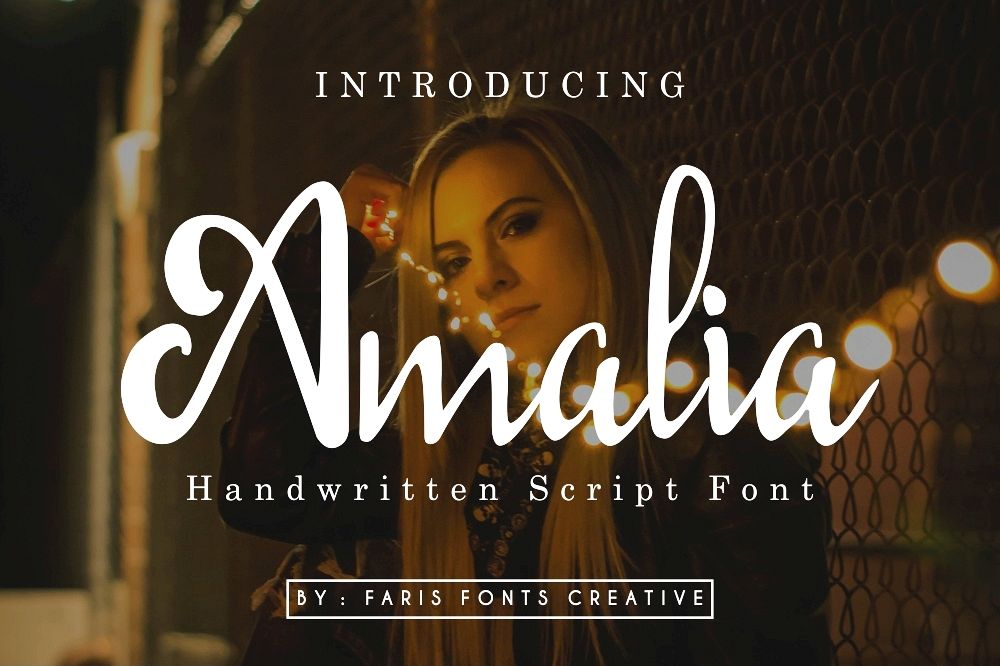
Amalia
Amalia is a
hand written font that has unic and strong style it works perfectly in all sort
of photo, design projects like fashion, wedding, branding, and more.
Amalia font
Complete with :
- Uppercase
- Lowercase
- Numerals
- Punctuation
- Swash
Also You can use Amalia for logotype, headline, instagram post, greeting cards, invitations,
Amalia